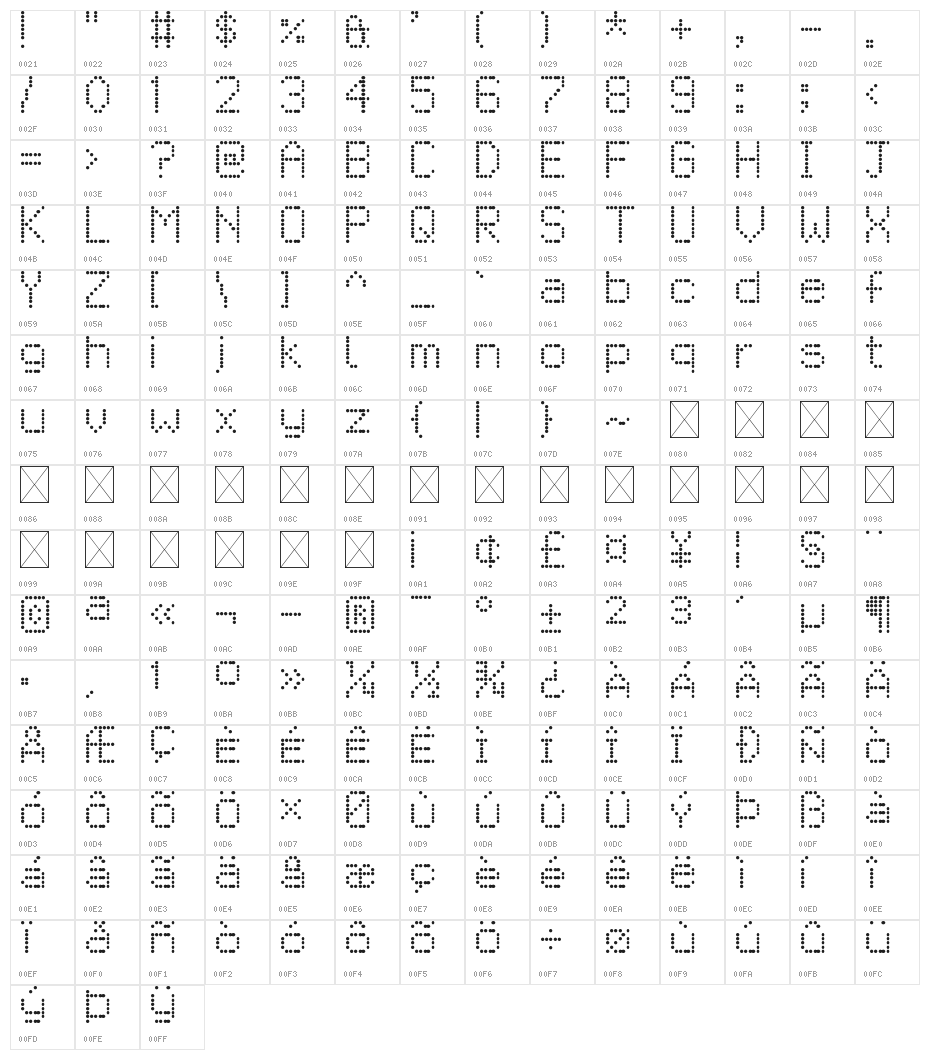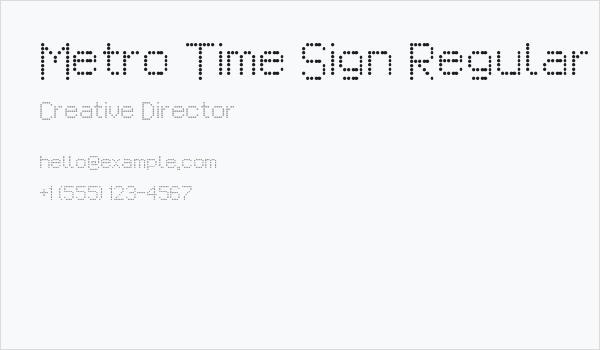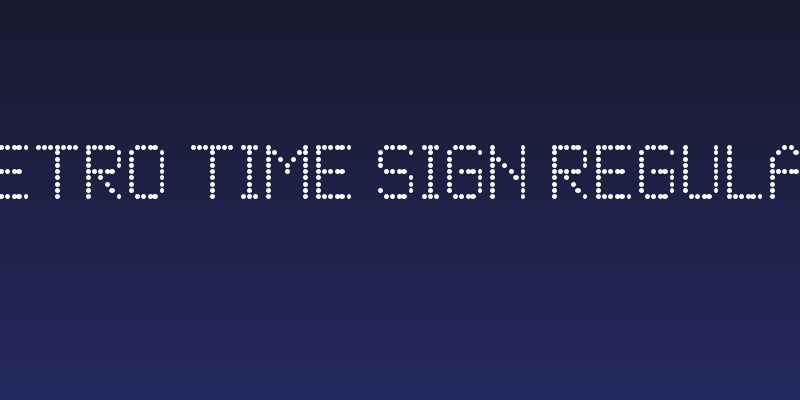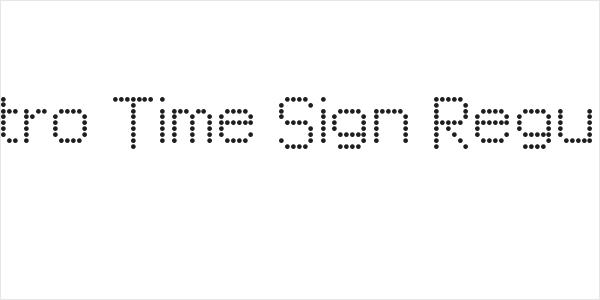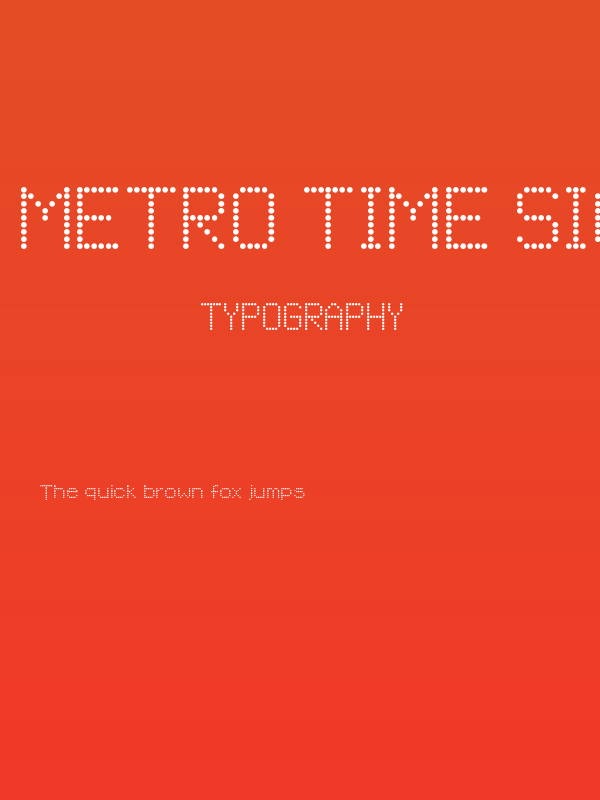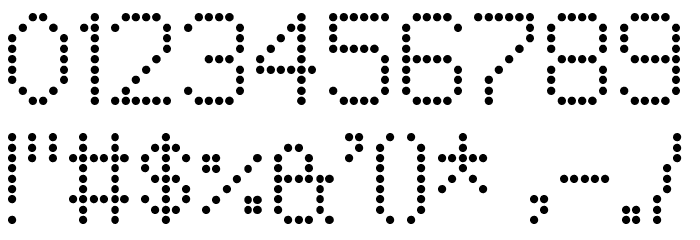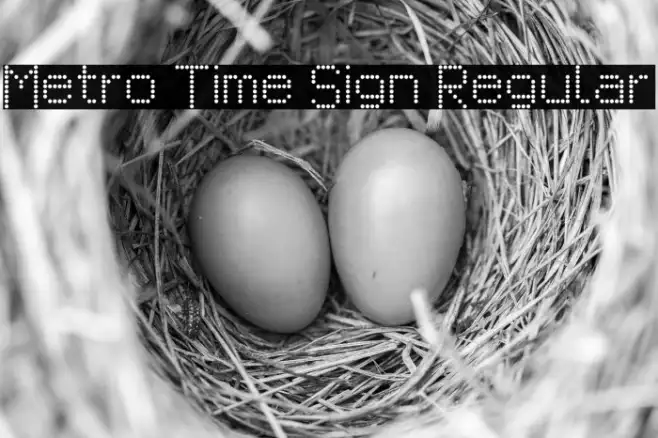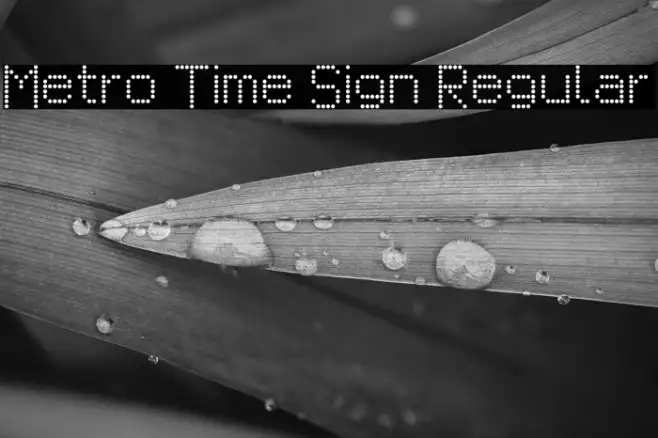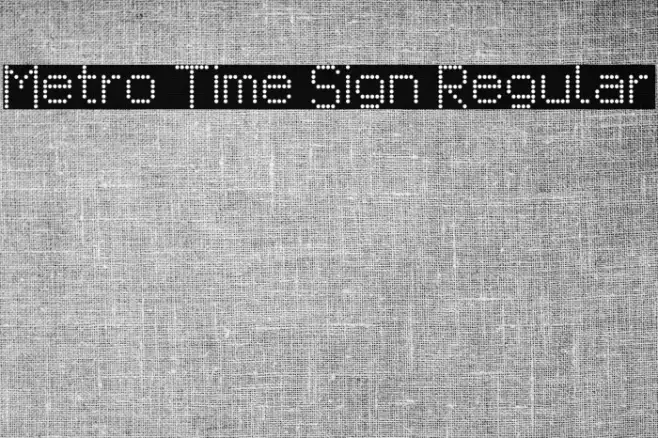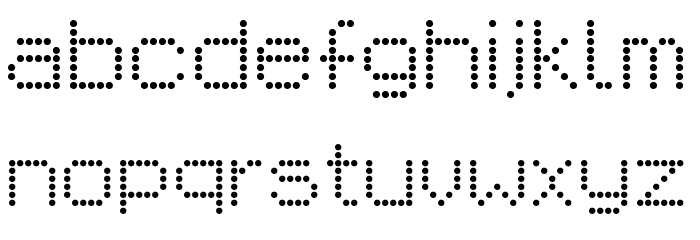
Metro Time Sign Regular Font
Metro Time Sign Regular Description
This font features a unique dot matrix style, reminiscent of digital displays and retro technology. Each character is composed of a grid of dots, creating a pixelated effect that is both modern and nostalgic. The uppercase and lowercase letters maintain a consistent structure, with rounded edges formed by the dots. Numbers and special characters follow the same design principle, ensuring uniformity across all glyphs. This font's distinctive appearance makes it ideal for projects that require a digital or technological aesthetic.
| Use Case | Headlines, Logos, Digital displays |
| Proposed Projects | Ideal for digital displays, retro-themed designs, tech-related branding, and creative posters. |